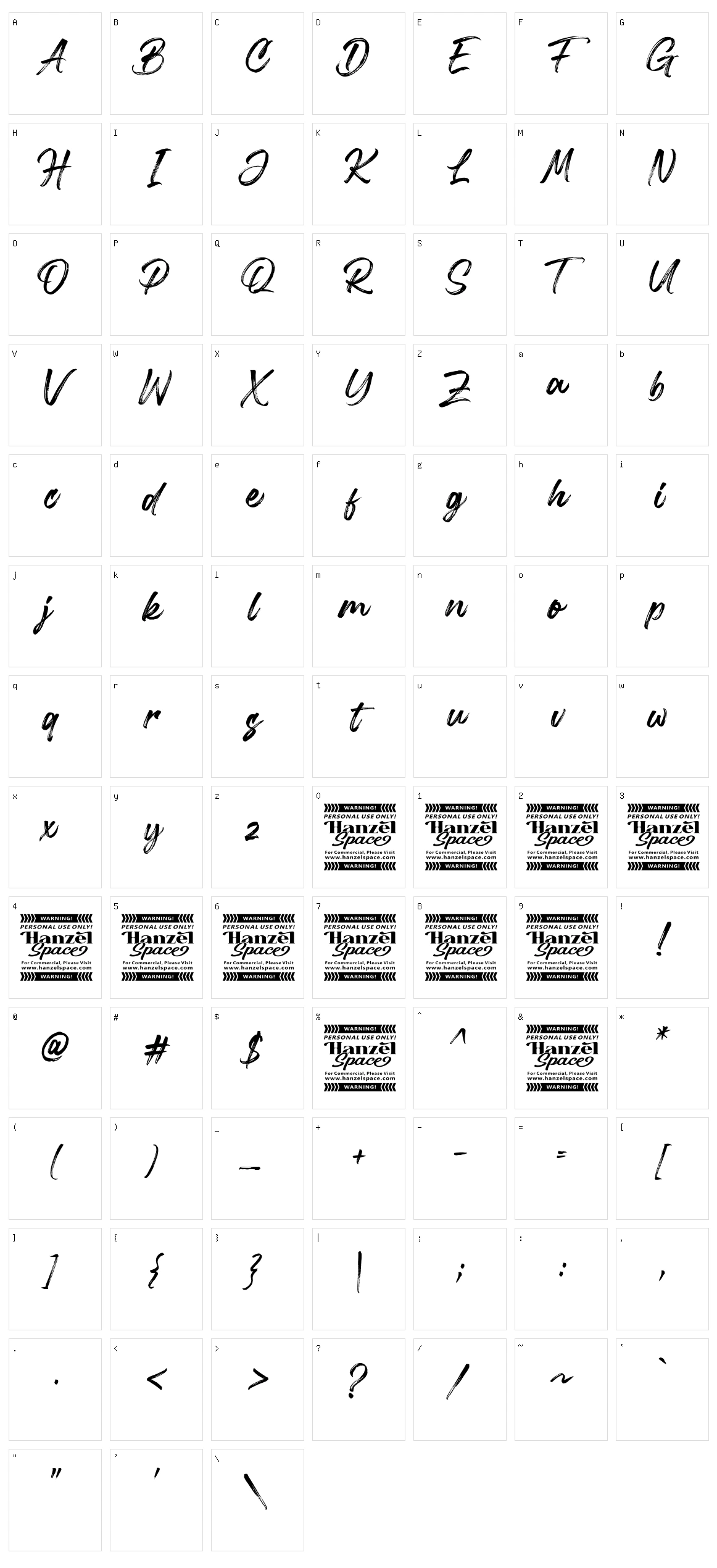
The free font Arthemis is carefully designed by Hanzel Space, showcasing a thoughtful balance of creativity and usability and falls under the Script font style. When you download the ZIP file, it contains only 2259.13 KB of font files, making it lightweight and quick to download. Please review the license details below to understand permitted usage and distribution rights. If license information is not available, we recommend using this font for personal projects only or contacting the author directly for commercial usage permissions.